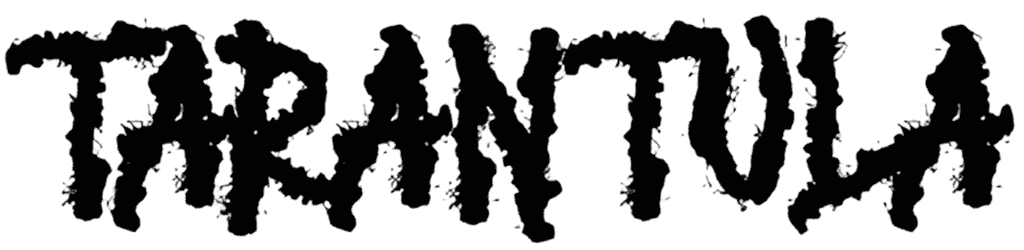
Tarantula Font
Tarantula ink and spread letters give your message a spooky look and have the ability to send wandering spirits flying through space. This horror font can turn any of your content into a powerful marketing tool that focuses the viewer on your designs for a few moments.
So, if you want a way to increase sales, ignore the lack of small letters in this font and use the power of capital letters and numbers to make your posters and ads more attractive.